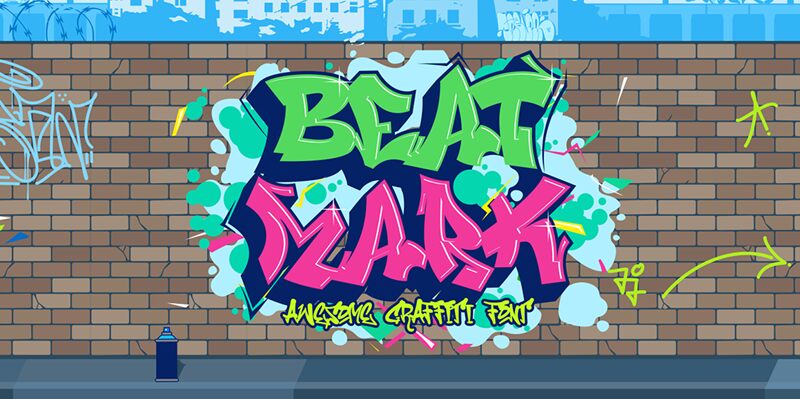
Beat Mark font by Cikareotype Studio is an expressive and vibrant graffiti-style free font. Its urban and impactful design is contemporary, energetic, and unapologetic, a way in which it rebels against any formal writing systems. Letters are youthful and daring as if they gained inspiration from street signs, but they stick together to become a part of a beautiful canvas to which you hold the brush. Artists will bring to life a font that is harder to tame, yet one that is so satisfying when it speaks the truth of our world.
Use this fanciful font for short word displays and titles in graffiti artwork, posters, and murals. Visibly set your presence online with Beat Mark using it for social media pages and posts, invitations, greeting cards, apparel designs like t-shirts, stationery items, stickers, and logos. Most of the font is upfront for the keen observer to see, but when switching between the various provided stylistic characters, you can discover its other sides.